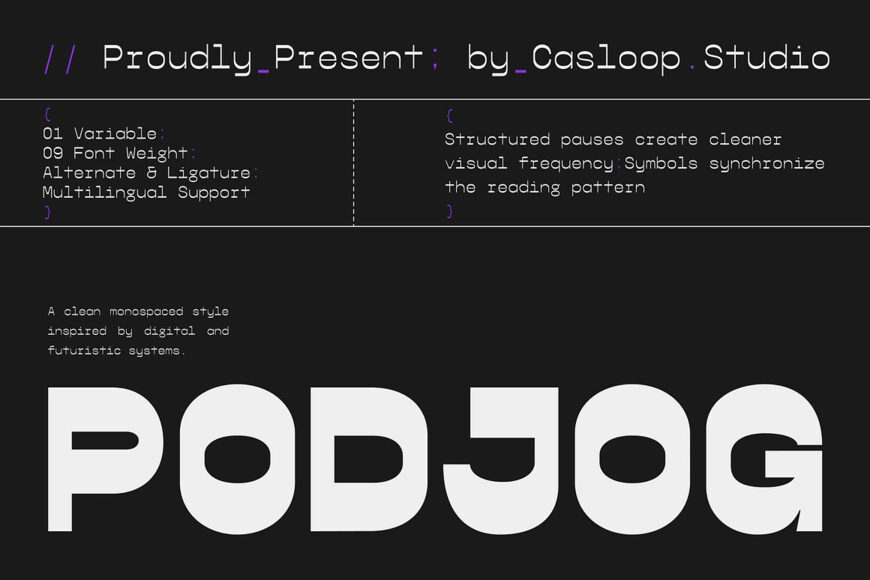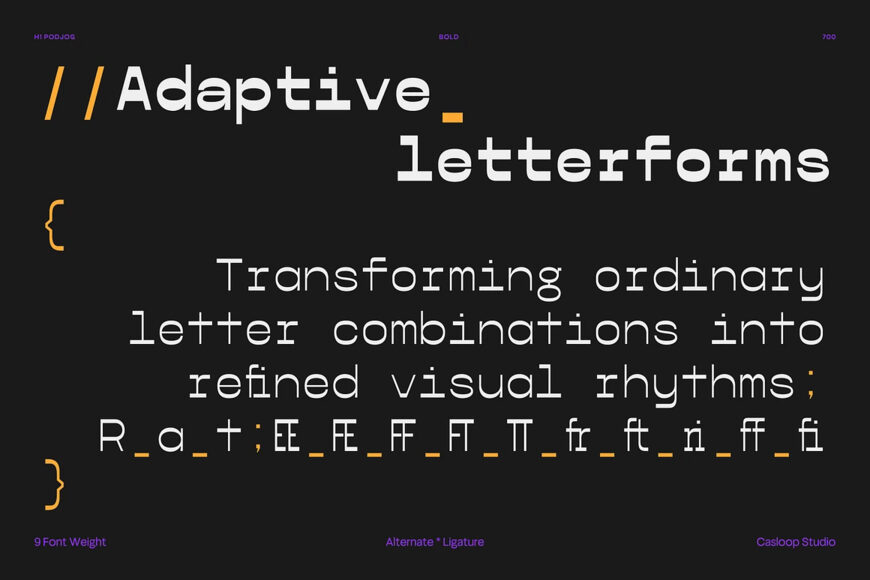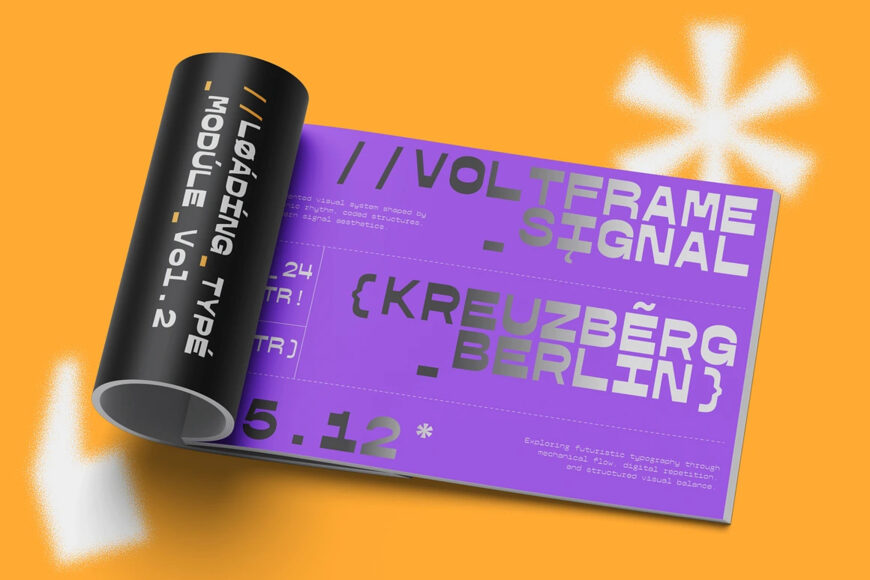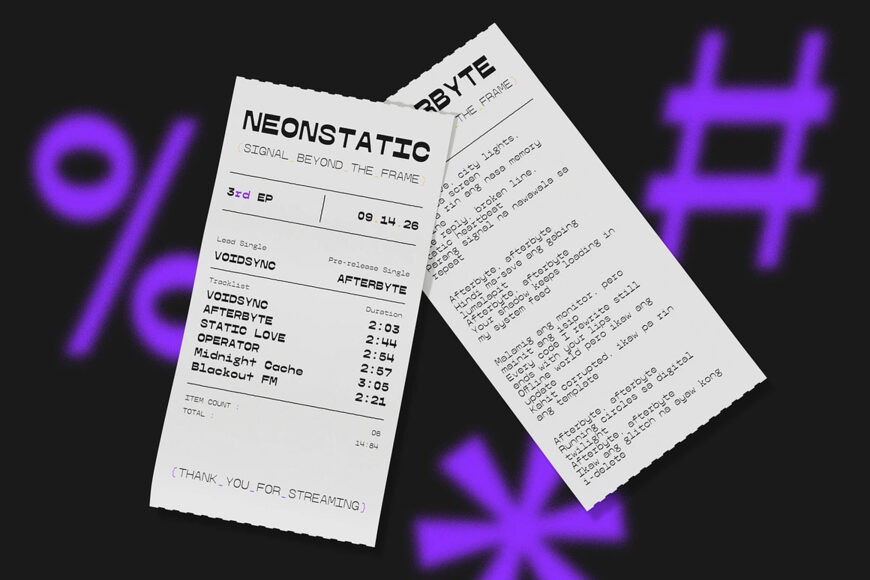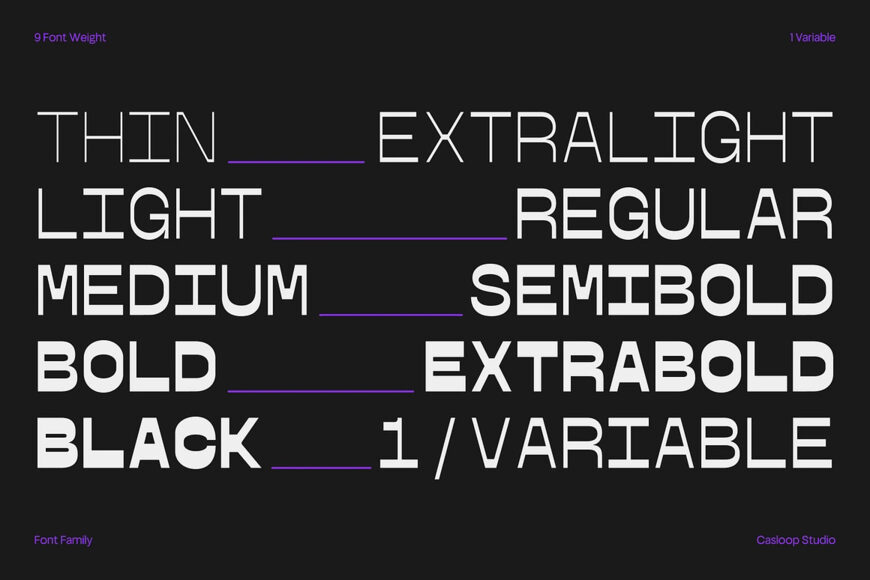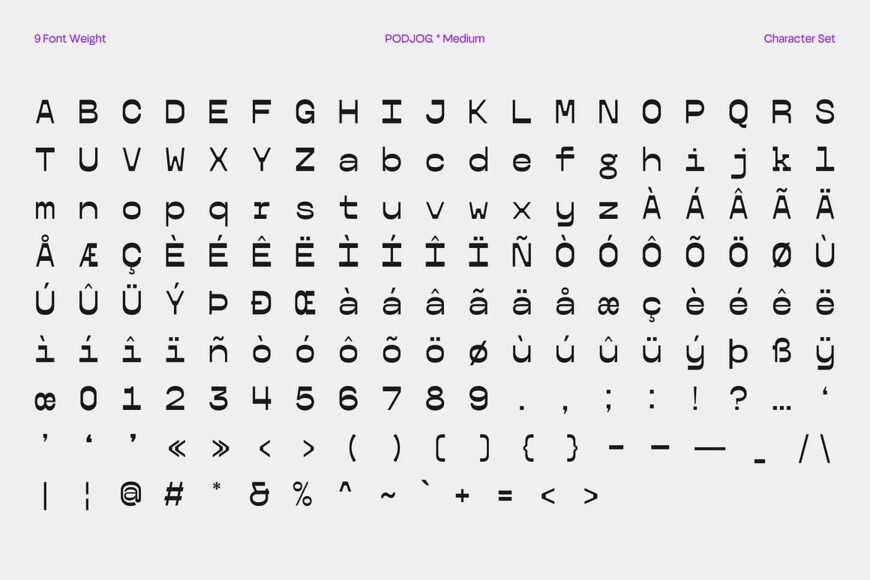
Podjog is a minimalist monospace typeface designed with a strong futuristic and technical character, combining clean modular construction with balanced visual consistency. Its standout characters T, S, and N emphasize repetitive geometric structures that create a rhythmic flow reminiscent of computer terminals, coding interfaces, and modern data panels.
The controlled spacing and stable proportions give Podjog a precise, highly functional appearance while maintaining a sleek contemporary aesthetic. With its versatile 9-weight family, Podjog is ideal for type setting, technology branding, editorial systems, UI design, futuristic visuals, and minimalist layouts that require clarity, structure, and modern digital presence.